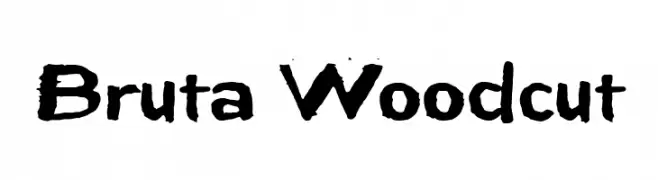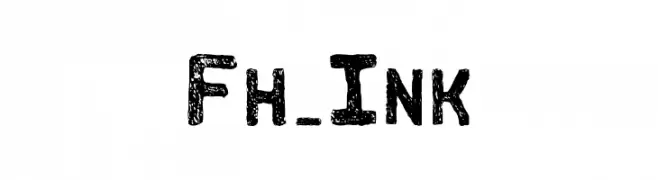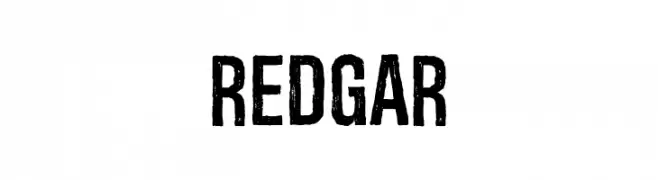
A bold, distressed font with a vintage, textured appearance.
A bold, distressed font with a textured, ink-like appearance.
A bold, rugged font with a linocut-inspired, hand-carved appearance.
A bold, distressed font with a vintage, rugged appearance.
A bold, hand-carved font with a rustic, woodcut appearance.
A vintage italic font with a textured, elegant style.
A bold, distressed font with a vintage, textured style.
A bold, distressed font with a textured, vintage printmaking style.
A bold, distressed font with a vintage, grunge aesthetic.